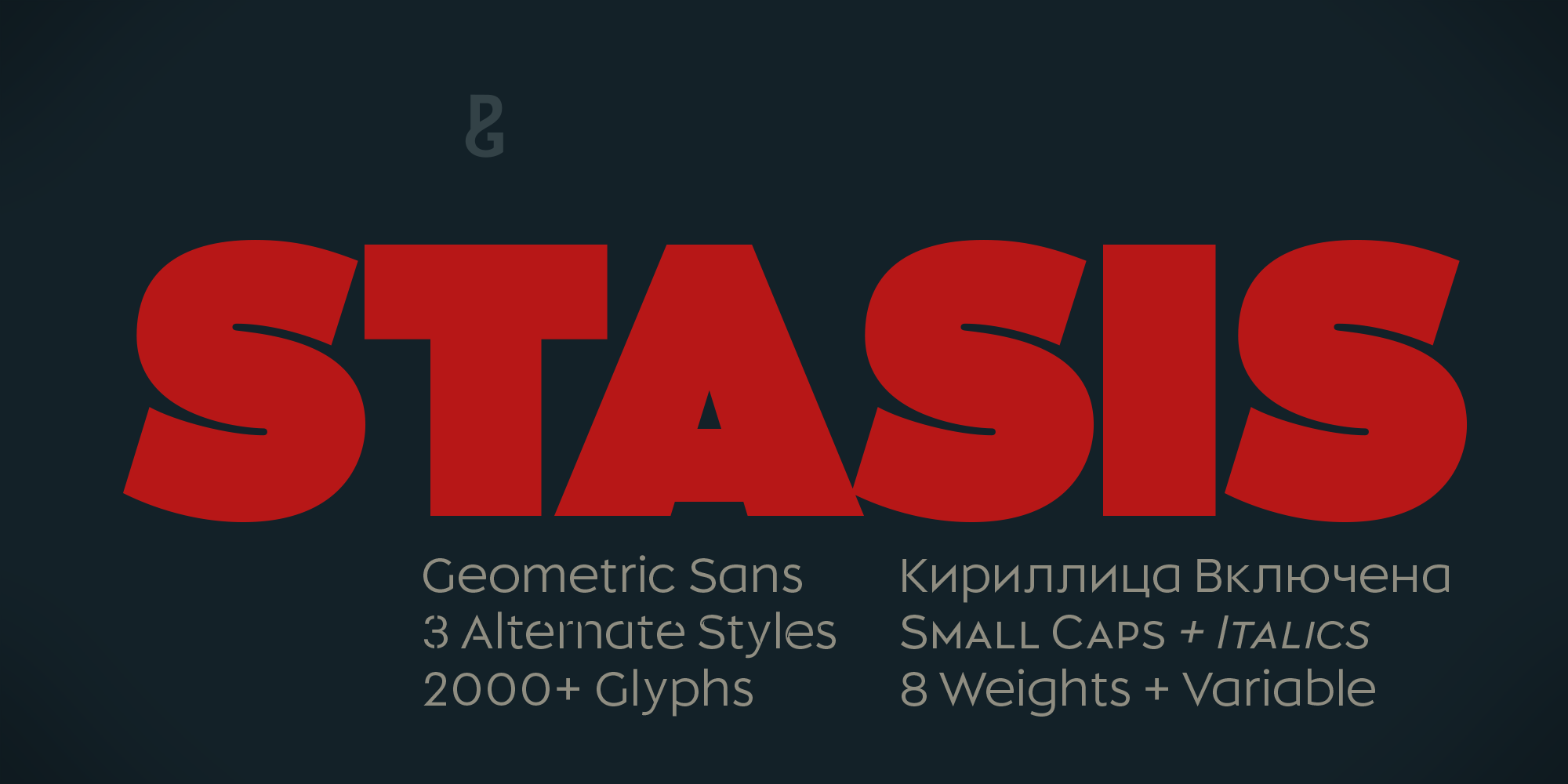
Perfect for science fiction movie titles, technology company branding, futuristic gaming interfaces, space exploration campaigns, medical equipment design, architectural presentations, scientific publications, and cutting-edge digital art projects.
This font is exciting because it captures the essence of suspended animation and technological precision with perfectly balanced letterforms that create a sense of timeless stability and futuristic sophistication.
Enter the realm of futuristic design with Stasis Font Free Download, a revolutionary typeface that embodies the perfect balance between technological advancement and timeless stability. This exceptional font represents the pinnacle of contemporary typography, making it indispensable for brands and projects seeking to communicate precision, innovation, and forward-thinking vision in today's rapidly evolving digital landscape.
Stasis Font features meticulously engineered letterforms with clean geometric foundations and subtle technological influences that create immediate associations with scientific precision and futuristic aesthetics. The carefully balanced proportions and modern character design ensure optimal readability while projecting the advanced technological credibility essential for brands operating in innovation-driven industries and cutting-edge markets.
The font's remarkable versatility makes it ideal for organizations where conveying stability and technological expertise simultaneously is crucial for brand credibility and customer confidence. Whether you're designing interfaces for aerospace companies developing next-generation technologies, creating marketing materials for biotechnology firms pioneering medical breakthroughs, or developing brand identities for artificial intelligence startups, Stasis Font delivers the sophisticated aesthetic that builds trust with technically sophisticated audiences.
Technology companies and scientific organizations worldwide rely on the Stasis Font Free Download for projects requiring both innovation appeal and professional stability. The font works exceptionally well for research institutions publishing groundbreaking studies, engineering consultancies showcasing technical capabilities, pharmaceutical companies promoting advanced treatments, and any organization seeking to project technological leadership through carefully designed visual communications.
The comprehensive Stasis Font family includes multiple weights and variations that work seamlessly together, enabling designers to create sophisticated information hierarchies for complex technical content. Each variation maintains the signature balanced character while providing the flexibility needed for diverse applications, from detailed scientific documentation to bold technology advertising campaigns that capture attention in competitive markets.
This typeface excels in both digital applications where screen clarity is paramount and print materials where technical precision must be maintained across various reproduction methods. The font's technical excellence ensures optimal performance across all platforms, from high-resolution laboratory displays to mobile interfaces that must function flawlessly under diverse usage conditions.
Stasis Font's contemporary aesthetic enhances the perceived value of technical content while improving comprehension through superior design and readability. The font's balanced character helps establish immediate credibility with technical audiences while maintaining the modern appeal necessary for engaging younger demographics interested in technological innovation.
The font represents more than typography—it's a bridge between current technological capabilities and future possibilities, making it invaluable for organizations positioning themselves as leaders in technological advancement and scientific discovery.